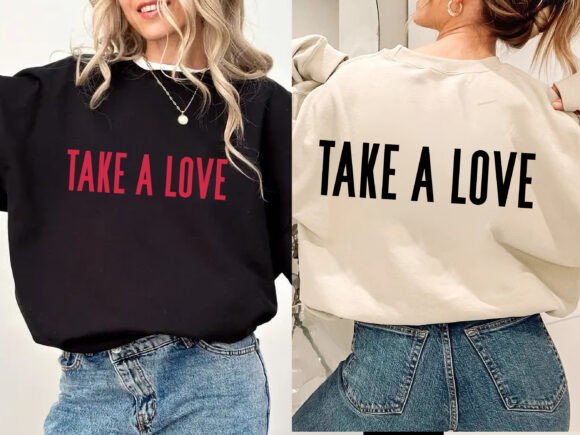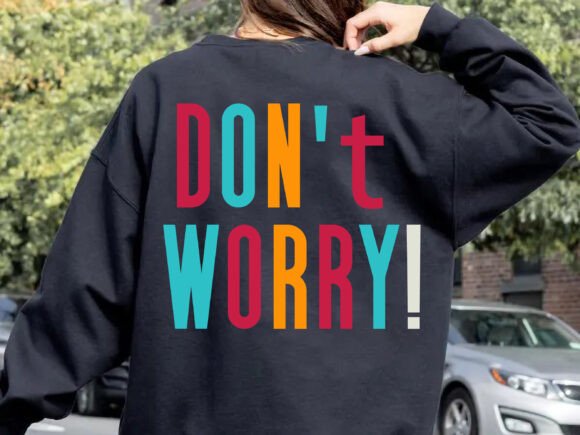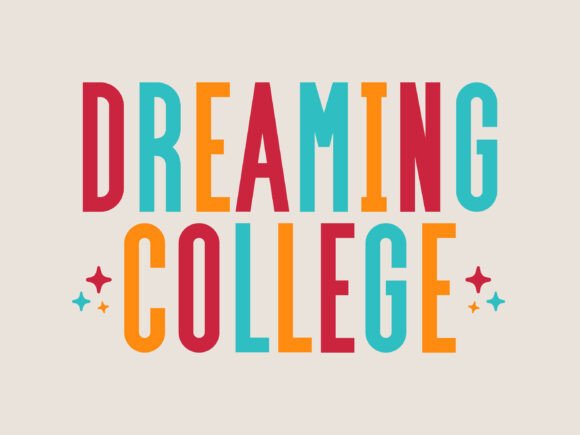
Dreaming College Font: The Perfect Choice for Adding a Fun Vibe to Your Projects
Are you tired of using the same old fonts for your projects? Do you want to add a touch of playfulness and cheerfulness to your designs? Look no further than the Dreaming College font! This delightful font is perfect for bringing a fun vibe to your projects, and its rounded, friendly letters make it great for posters, school projects, and anything that needs a happy, uplifting look.
What is Dreaming College Font?
Dreaming College font is a modern, sans-serif font that is designed to bring a sense of joy and playfulness to your designs. Its unique, rounded letters are perfect for creating eye-catching posters, fun school projects, and other materials that need a happy, uplifting look. Whether you’re a designer, teacher, or crafty person, this font is sure to become a favorite in your collection.
Key Features of Dreaming College Font
- Rounded and Friendly Letters: The Dreaming College font features rounded, friendly letters that are perfect for creating a fun and approachable look.
- Cheerful and Playful: This font is designed to bring a sense of joy and playfulness to your designs, making it perfect for projects that need a happy, uplifting look.
- Versatile: The Dreaming College font is versatile and can be used for a wide range of projects, including posters, school projects, crafts, and more.
- Easy to Read: The font is easy to read, even at small sizes, making it perfect for use in a variety of applications.
Uses for Dreaming College Font
The Dreaming College font is perfect for a wide range of projects, including:
- Posters: Create eye-catching posters for school, work, or personal projects with this fun and playful font.
- School Projects: Add a touch of personality to your school projects with the Dreaming College font.
- Crafts: Use this font to add a personal touch to your crafts, such as scrapbooking, card making, and more.
- Social Media Graphics: Use the Dreaming College font to create fun and engaging social media graphics.
Tips for Using Dreaming College Font
Here are a few tips for using the Dreaming College font:
- Pair with Other Fonts: Pair the Dreaming College font with other fonts to create a unique and interesting look.
- Use Bright Colors: Use bright, bold colors to really make your designs pop with the Dreaming College font.
- Experiment with Sizes: Experiment with different font sizes to create visual interest and add emphasis to your designs.
| Font Name | Dreaming College Font |
| Author | MistyDesigns |
The Dreaming College font is a versatile and fun font that is perfect for adding a touch of playfulness and cheerfulness to your designs. Its rounded, friendly letters make it great for posters, school projects, and anything that needs a happy, uplifting look. Whether you’re a designer, teacher, or crafty person, this font is sure to become a favorite in your collection. So why not give it a try and see how it can add a fun vibe to your projects?